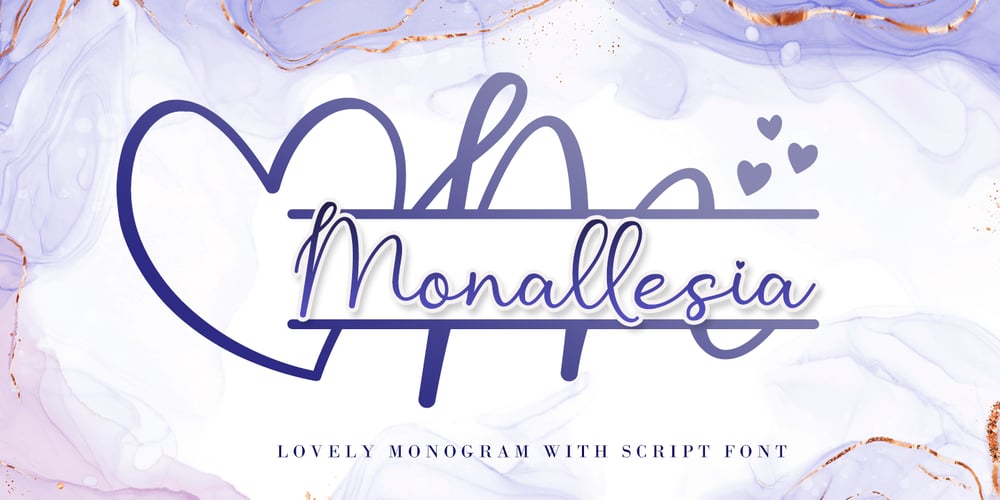
Monallesia Font Family was designed by Agung Eko Nugroho and published by AEN Creative Studio. Monallesia contains 4 styles and family package options. Monallesia is a sweet, soft hand-lettered font and monogram. Fall in love with its authentic feel and use it to create gorgeous wedding invitations, beautiful stationary art, eye-catching social media posts, Logo, Brand, and cute greeting cards. This display font is the perfect choice for making original and outstanding designs. This font is PUA encoded which means you can access all of the heart-themed glyphs and swashes with ease! It also features a wealth of special features including alternate glyphs and ligatures.